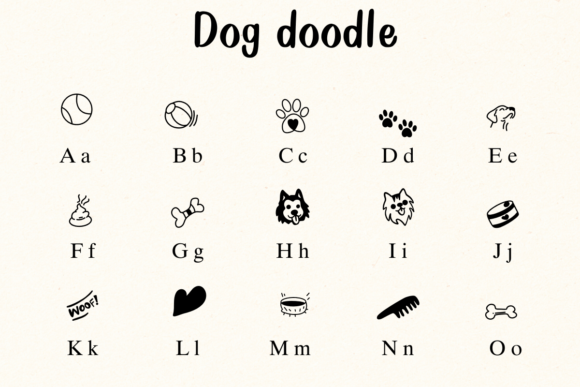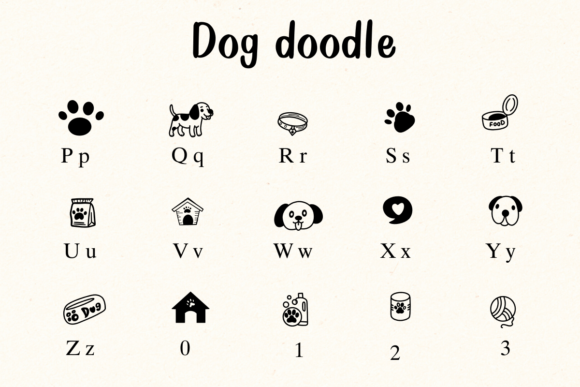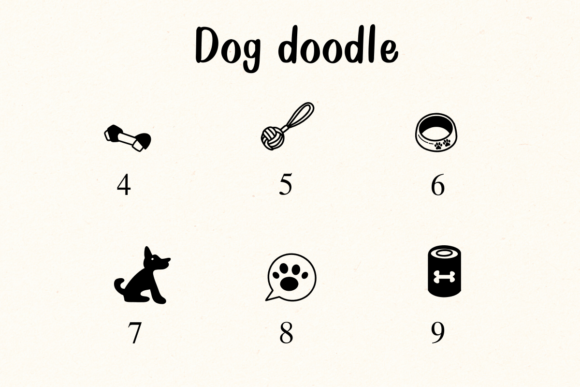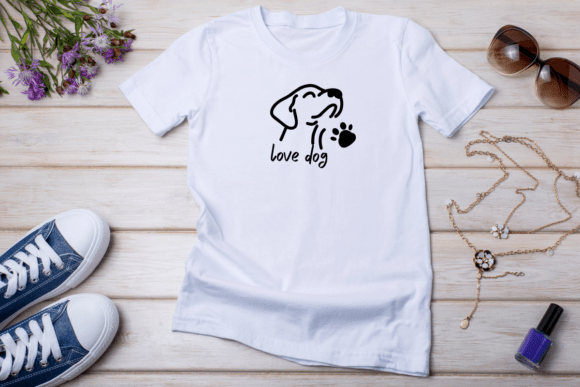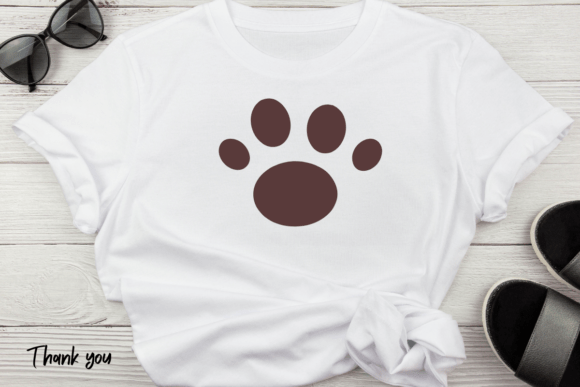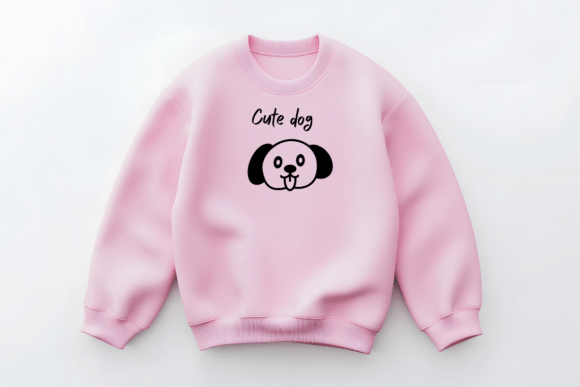
Unleash the Cuteness: Exploring the Delightful World of Dog Doodle Font
Are you a designer, crafter, or pet lover looking for a fun and creative way to add a touch of canine charm to your projects? Look no further than the Dog Doodle font, a playful dingbat font that is packed with an array of adorable dog-themed illustrations. From cute pups and paw prints to toys, food bowls, and hearts, this font is perfect for pet branding, greeting cards, scrapbooking, and any design that needs a dose of cuteness.
What is Dog Doodle Font?
Dog Doodle is a unique and engaging dingbat font that features a wide range of dog-themed illustrations, each carefully crafted to bring a smile to your face. The font includes a variety of images, from simple and cute to more detailed and intricate designs, making it suitable for a range of projects and applications.
Key Features of Dog Doodle Font
- Adorable dog illustrations: The font features a vast array of dog-themed illustrations, including pups, paw prints, toys, food bowls, and hearts.
- Playful and charming: Each illustration is designed to be playful and charming, adding a touch of whimsy to your designs.
- Perfect for pet branding: The font is ideal for pet-related businesses, such as pet stores, dog walkers, and veterinarians, looking to add a touch of personality to their branding.
- Suitable for various design projects: Dog Doodle font can be used for a range of design projects, including greeting cards, scrapbooking, posters, and social media graphics.
Benefits of Using Dog Doodle Font
Using Dog Doodle font in your designs offers several benefits, including:
- Unique and eye-catching designs: The font’s illustrations are sure to grab attention and add a touch of personality to your designs.
- Time-saving: With a wide range of illustrations to choose from, you can quickly and easily add dog-themed elements to your designs, saving you time and effort.
- Scalable: The font is scalable, allowing you to use it for a range of projects, from small icons to large posters.
Design Ideas Using Dog Doodle Font
The Dog Doodle font is versatile and can be used in a range of design projects. Here are a few ideas to get you started:
- Pet store branding: Use the font to create eye-catching branding for pet stores, including logos, signage, and packaging.
- Greeting cards: Add a touch of canine charm to your greeting cards, perfect for dog lovers and pet owners.
- Scrapbooking: Use the font to create adorable scrapbook pages, perfect for pet-themed albums.
- Social media graphics: Add a touch of whimsy to your social media graphics, including Facebook posts, Instagram stories, and Twitter headers.
In conclusion, the Dog Doodle font is a playful and charming dingbat font that is perfect for designers, crafters, and pet lovers looking to add a touch of canine cuteness to their projects. With its wide range of adorable dog-themed illustrations, ease of use, and scalability, this font is sure to become a favorite in your design arsenal.